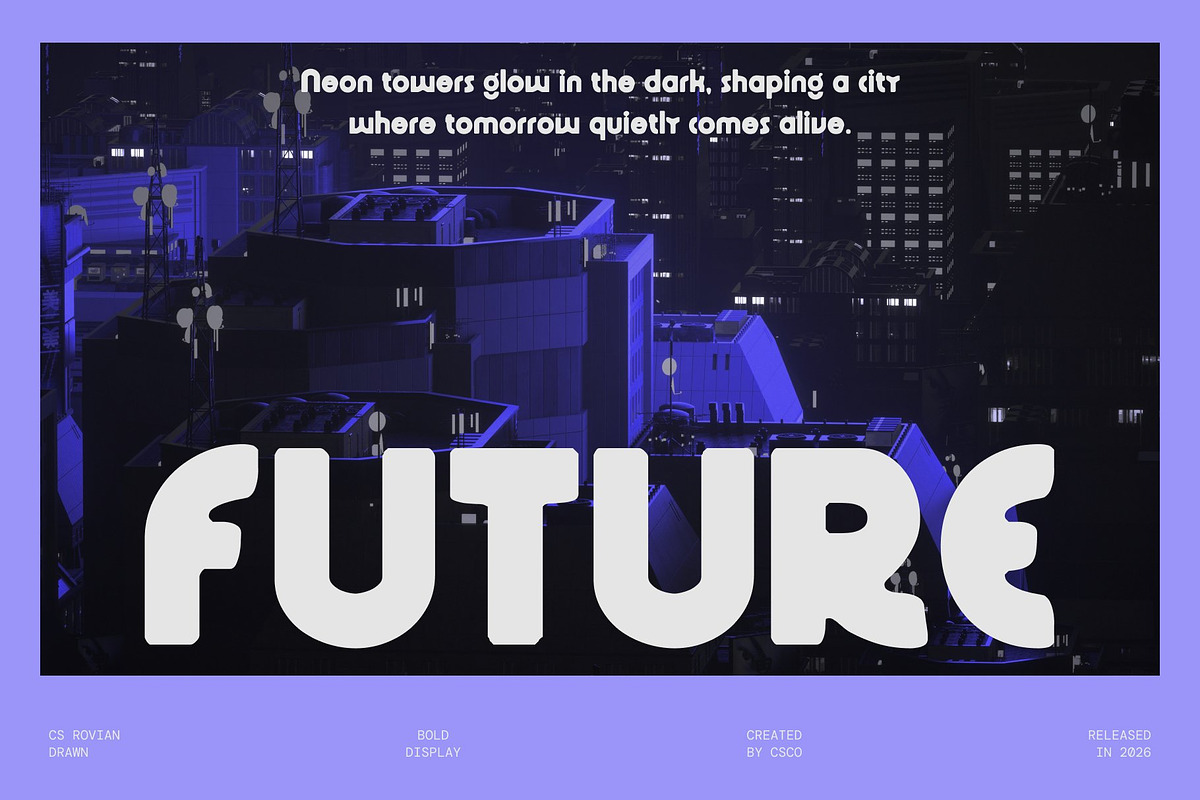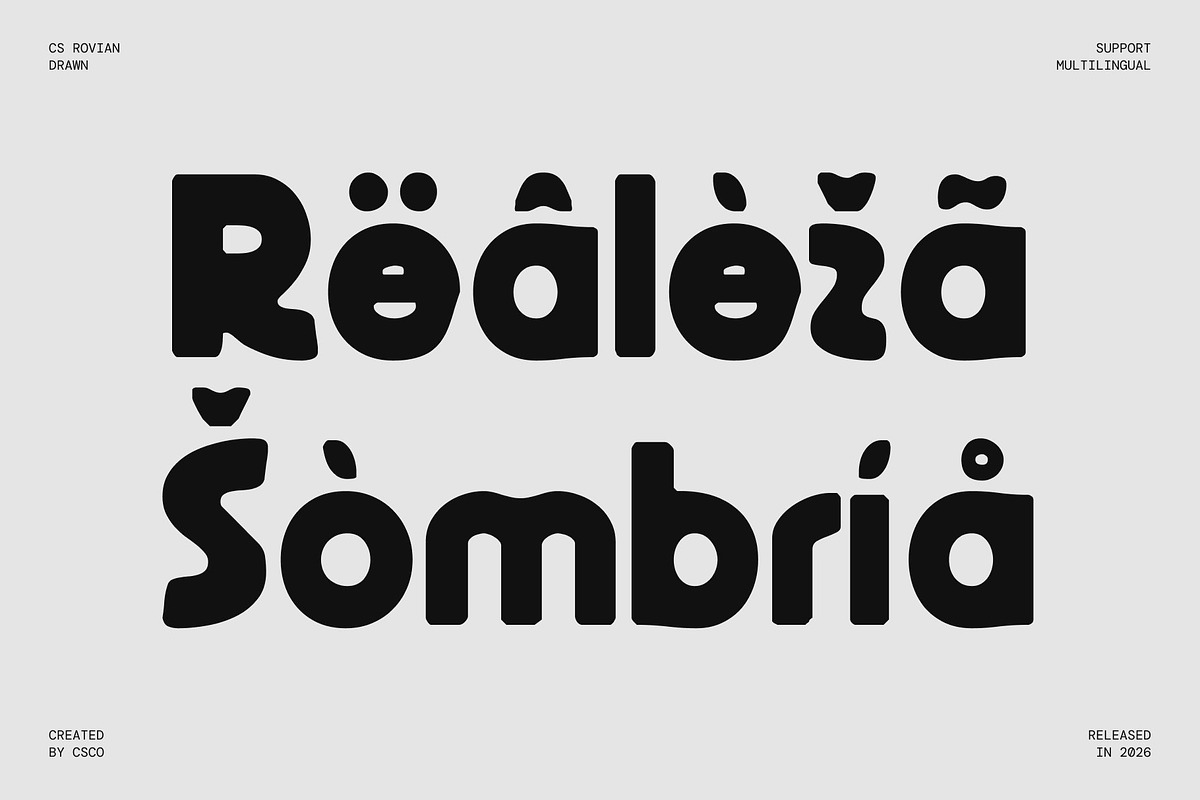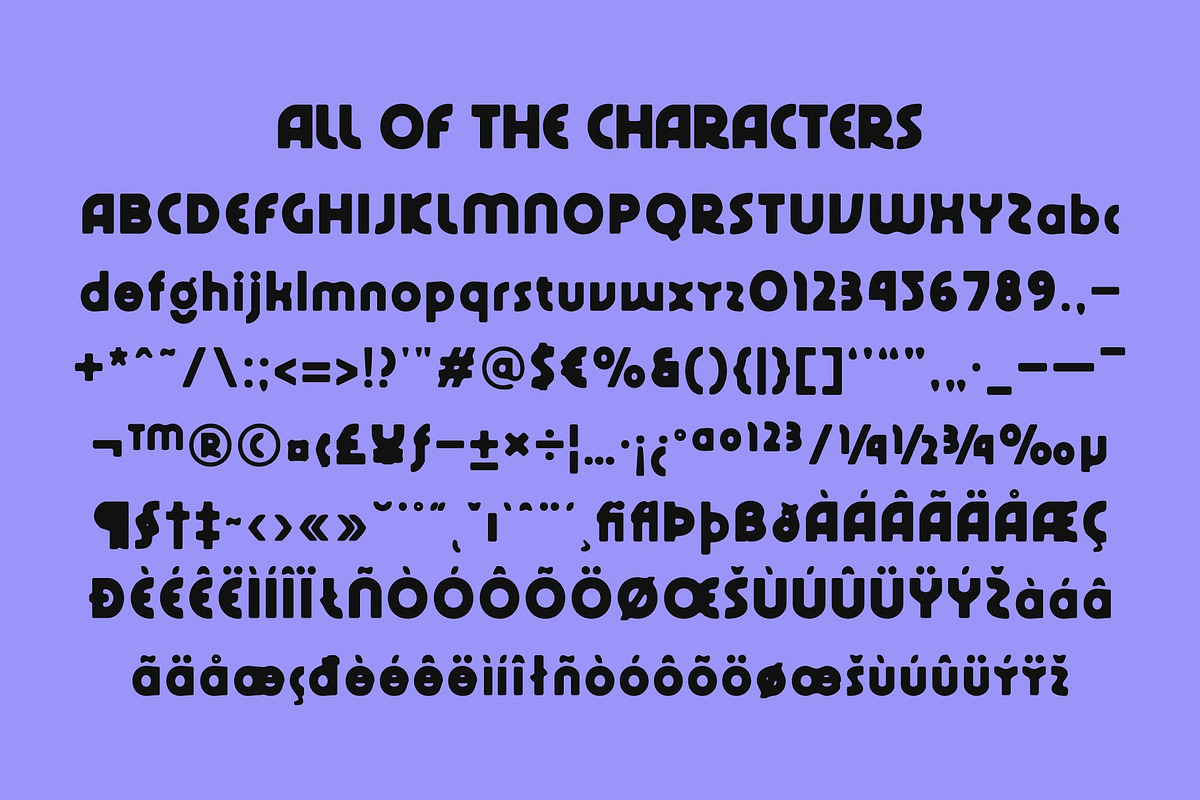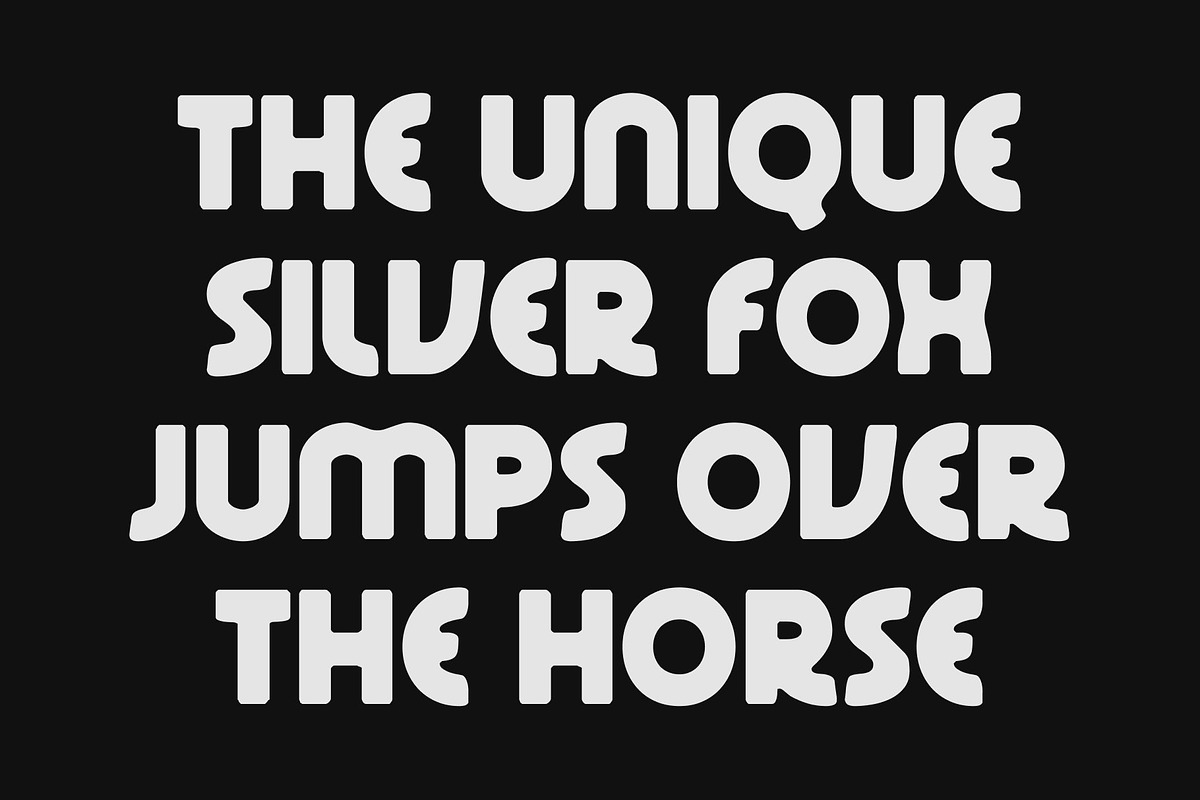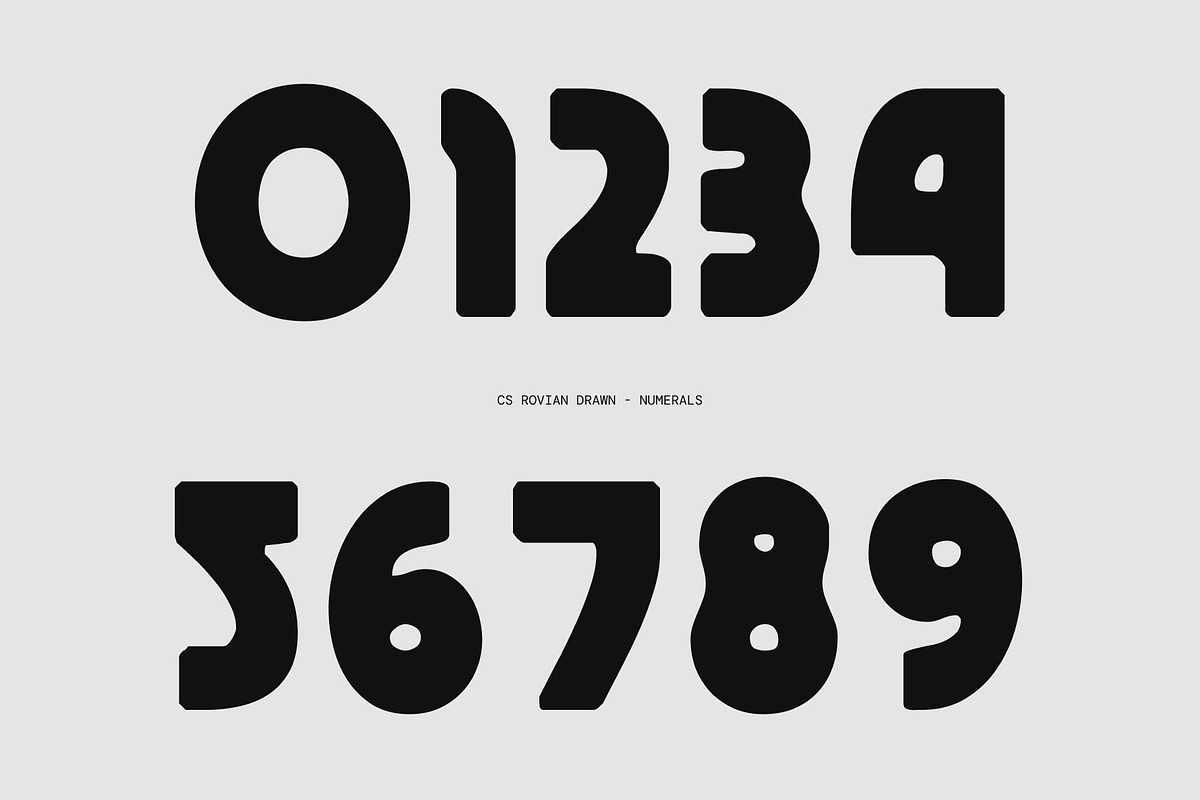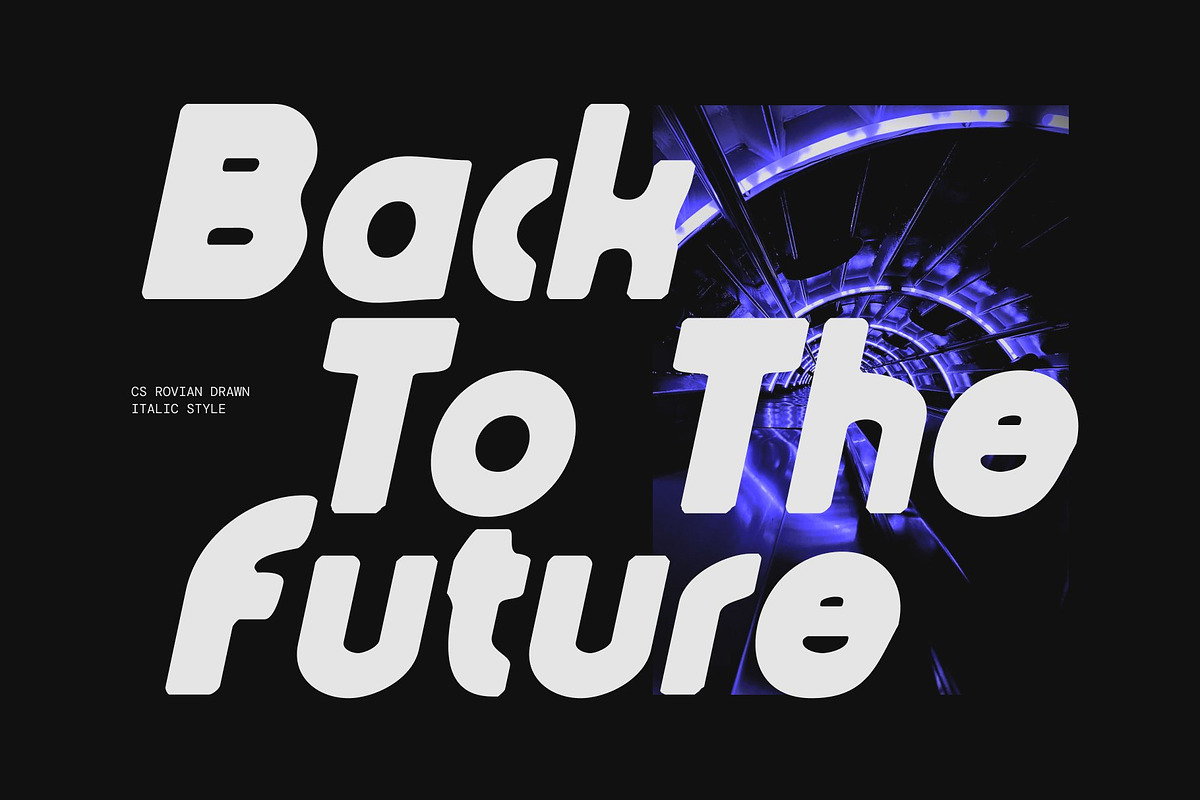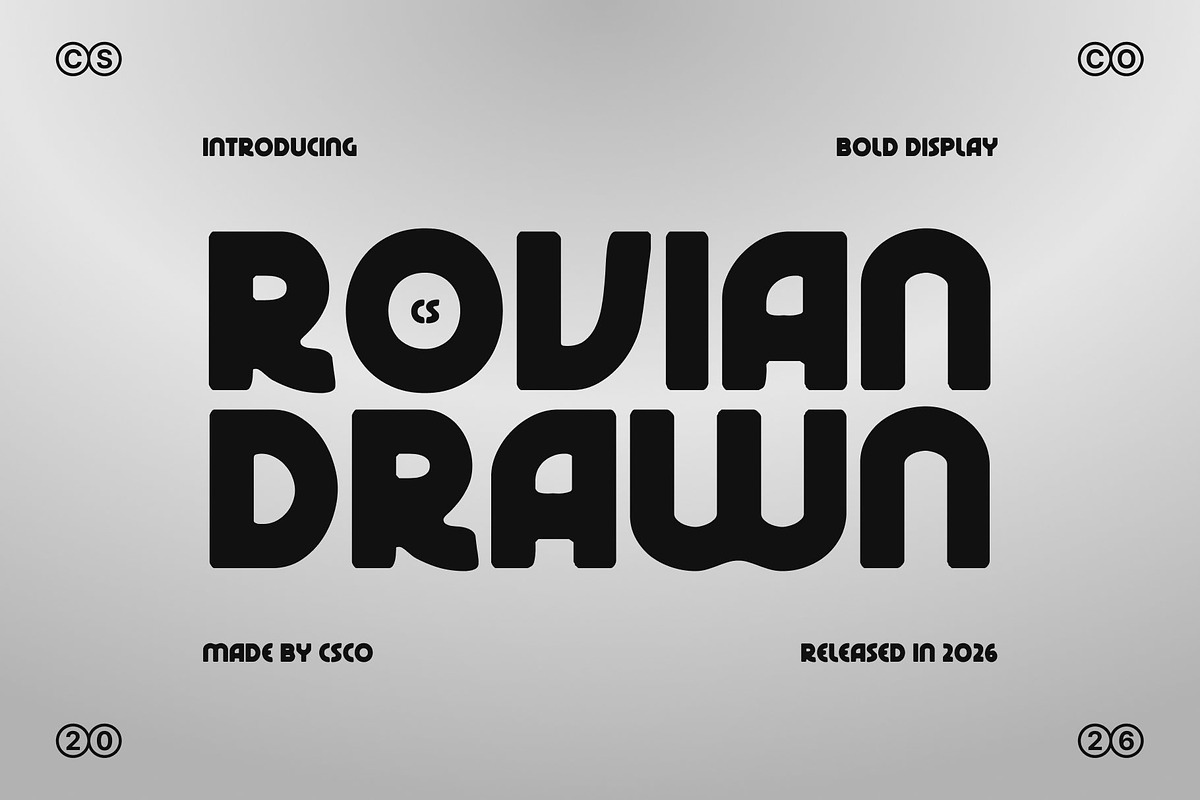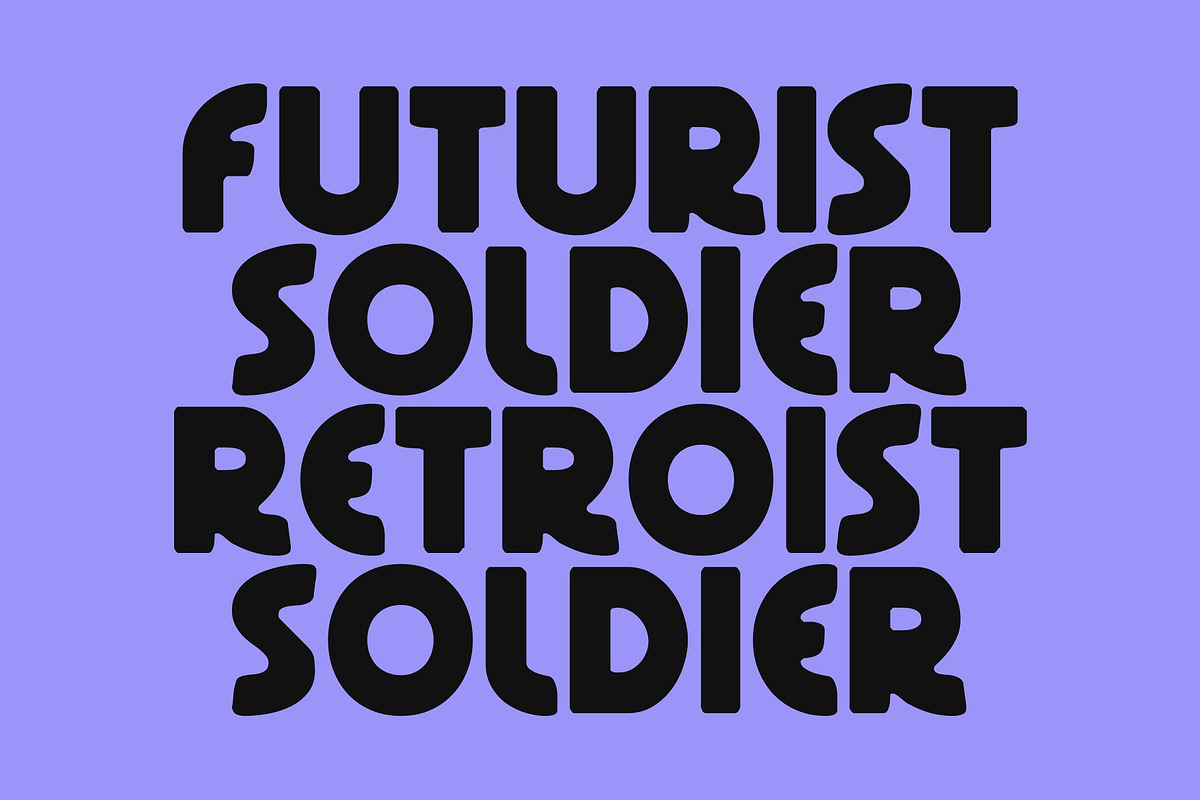
CS Rovian Drawn
CS Rovian Drawn – Modern Sans Serif with Geometric Techno Playfulness
Bold Geometric Sans Serif with Hand-Drawn Edge This is a modern sans serif font built around bold geometric forms and a strong techno influence, enhanced with a subtle hand-drawn texture. Its confident structure and clean construction create a powerful visual base, while the drawn finish introduces warmth and individuality. The result is a typeface that feels cool, expressive, and unmistakably contemporary.
Techno Precision with Playful Energy Sharp geometric shapes and futuristic proportions give the font a forward-thinking character. Rounded transitions and creative detailing soften the structure, while the gentle drawn nuances prevent it from feeling overly mechanical. This balance between precision and playfulness allows the font to stand out with dynamic, stylish energy.
Fresh, Stylish, and Expressive Modernity This font communicates a bold modern attitude through strong forms and balanced spacing. Its geometric clarity ensures readability, while handcrafted subtleties add personality and charm. This combination creates a look that feels innovative, confident, and visually engaging without losing approachability.
Ideal for Modern Creative Projects Perfect for branding, posters, gaming visuals, tech campaigns, editorials, and display typography, this font performs exceptionally well in headlines and statement layouts. Its fusion of bold geometry, techno inspiration, and drawn character delivers a fresh, trend-forward presence with distinctive creative flair.